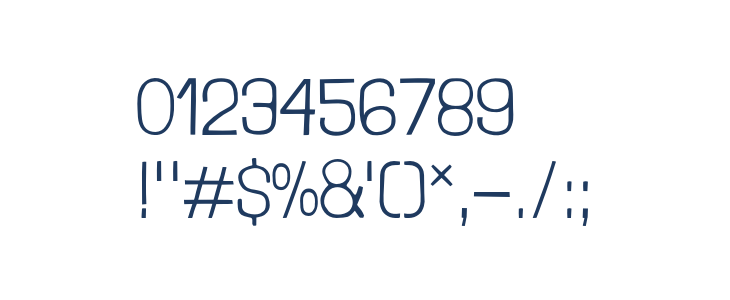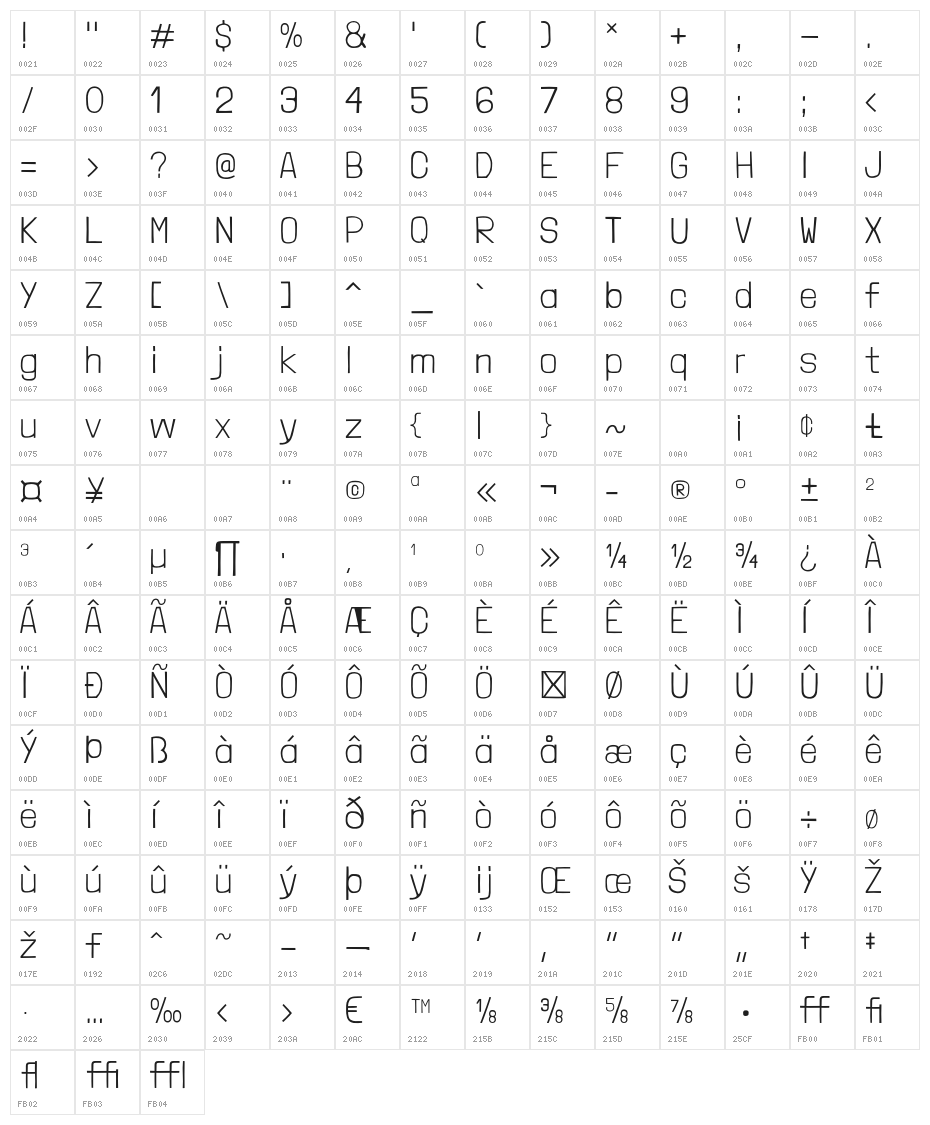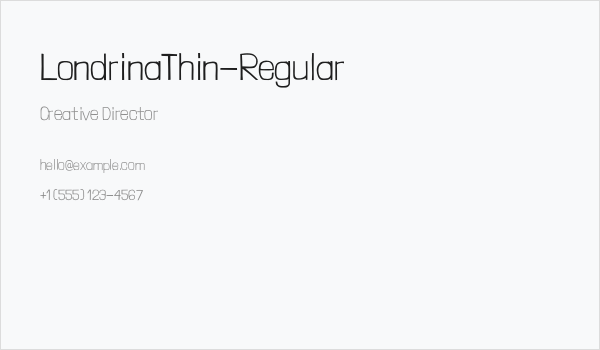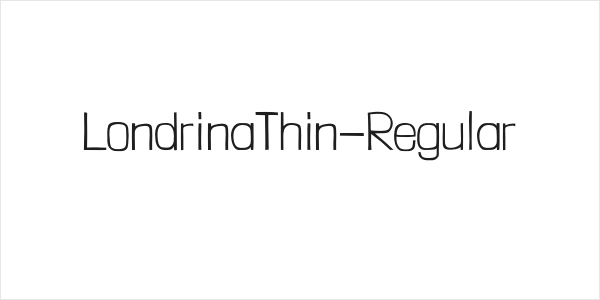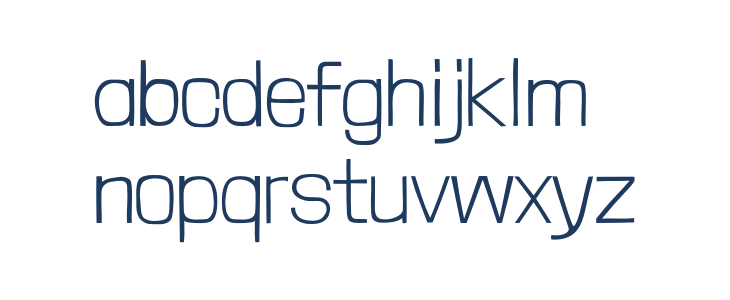
LondrinaThin-Regular Font
This font features a unique and playful design with a thin, elongated structure. The characters have a distinct geometric quality, with rounded edges and a slightly condensed form. The uppercase letters are tall and narrow, while the lowercase letters maintain a consistent height, creating a harmonious balance. The numerals are clean and straightforward, matching the overall aesthetic. Special characters are well-integrated, maintaining the font's cohesive style. This font's light weight and modern appeal make it suitable for various creative applications.
Proposed ProjectsIdeal for creative projects such as posters, logos, and branding materials where a modern and playful touch is desired.